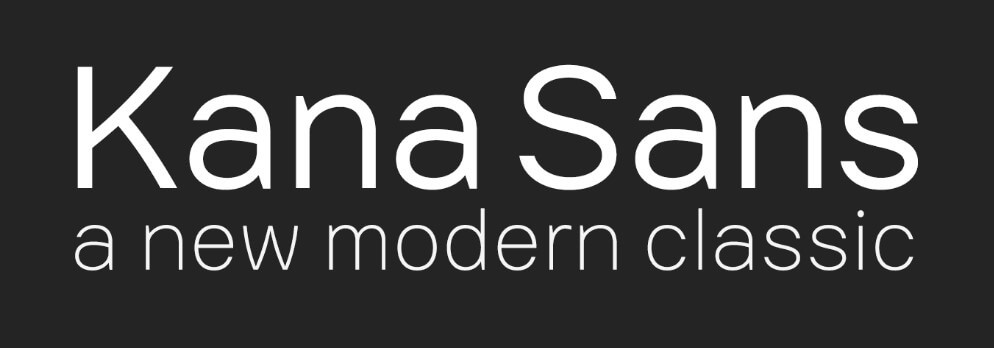
Kana sans is a classic modern typeface that falls within the versatile sans-serif category. This typeface draws inspiration from Iconic Typography.
This is balanced. Current and effortlessly adaptable to the web, print, and signage packages. It has six distinctive weights and matching italics. Nowadays kana sans is a powerful, and popular communique font.
Kana Sans Font